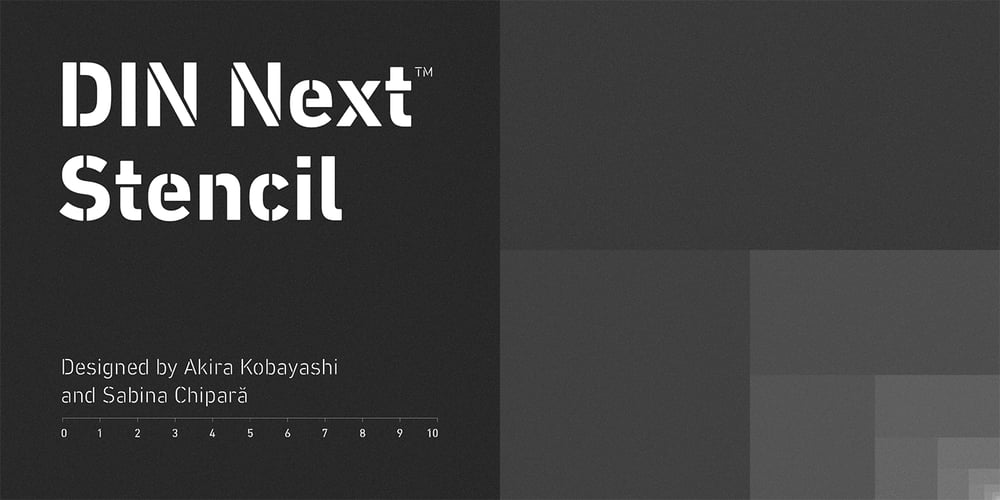
DIN Next Stencil
DIN Next Stencil font
DIN Next Stencil Font Family was designed by Akira Kobayashi, Sabina Chipară and published by Monotype. DIN Next Stencil contains 7 styles and family package options. The DIN Next™ Stencil suite of designs is DIN with an attitude. It’s even more industrial strength than the original. DIN Next Stencil’s seven roman weights are perfect for projects that require a mechanized, military, or commercial vibe. If you’re looking to create commanding display typography, be it in advertising, apparel, packaging, posters, signage, wayfinding – or crash dummy name tags, DIN Next Stencil can be the perfect typographic enhancement. Based on Akira Kobayshi’s DIN Next with stenciling by Sabina Chipară, the wide range of weights and large complement of diacritical and international characters – including those for Cyrillic and Greek – further expand the design’s capabilities. The DIN Next Stencil fonts are powerful tools in their own right – and provide a distinctive supplement to the DIN Next typographic palette.